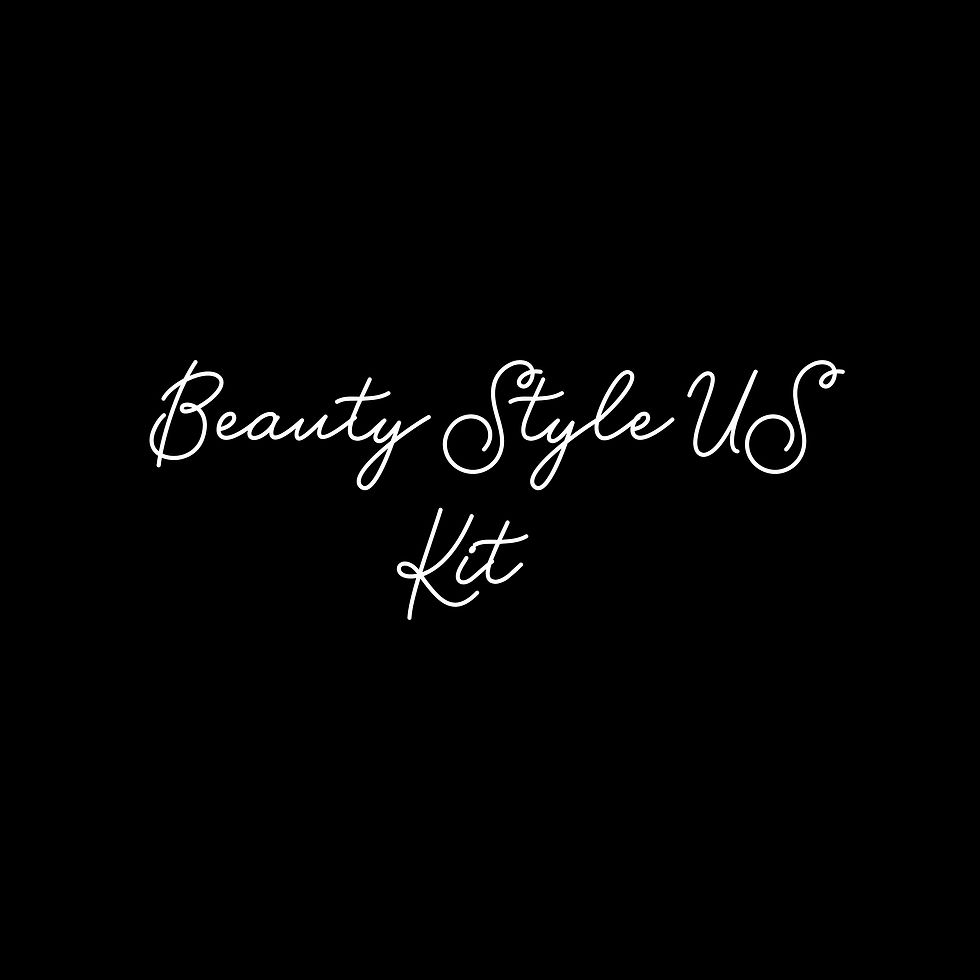
BEAUTY STYLE US FONT KIT includes 2 Fonts and 1 Art Fonts/ Vector Artwork (AI) File.
Beauty Style font is a luxurious signature script that includes 12 alternates and 56 ligatures. Programming has been added to the scripts for flow and elegance. This font comes with American (US) Characters.
Beauty Style US Sans font is a geometric, sans serif font. This font comes with American (US) Characters.This font comes with Latin Pro Characters.
Beauty Style US Font Kit